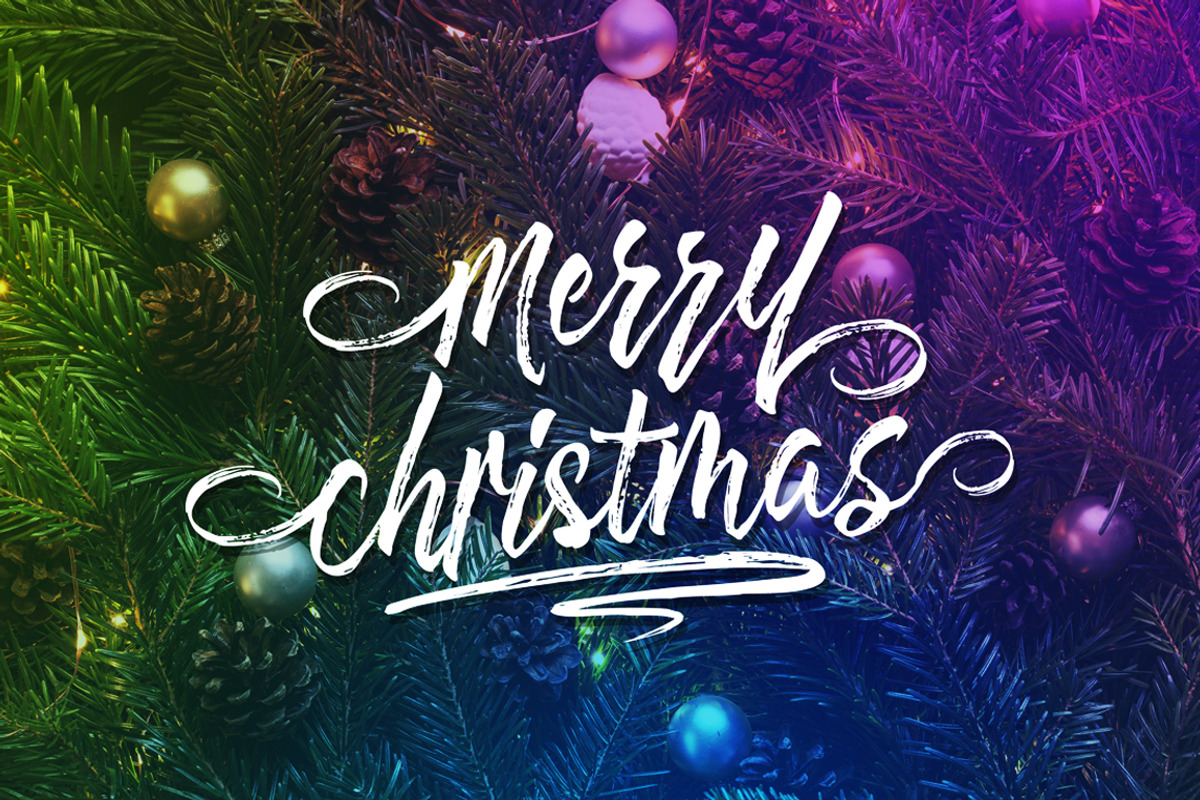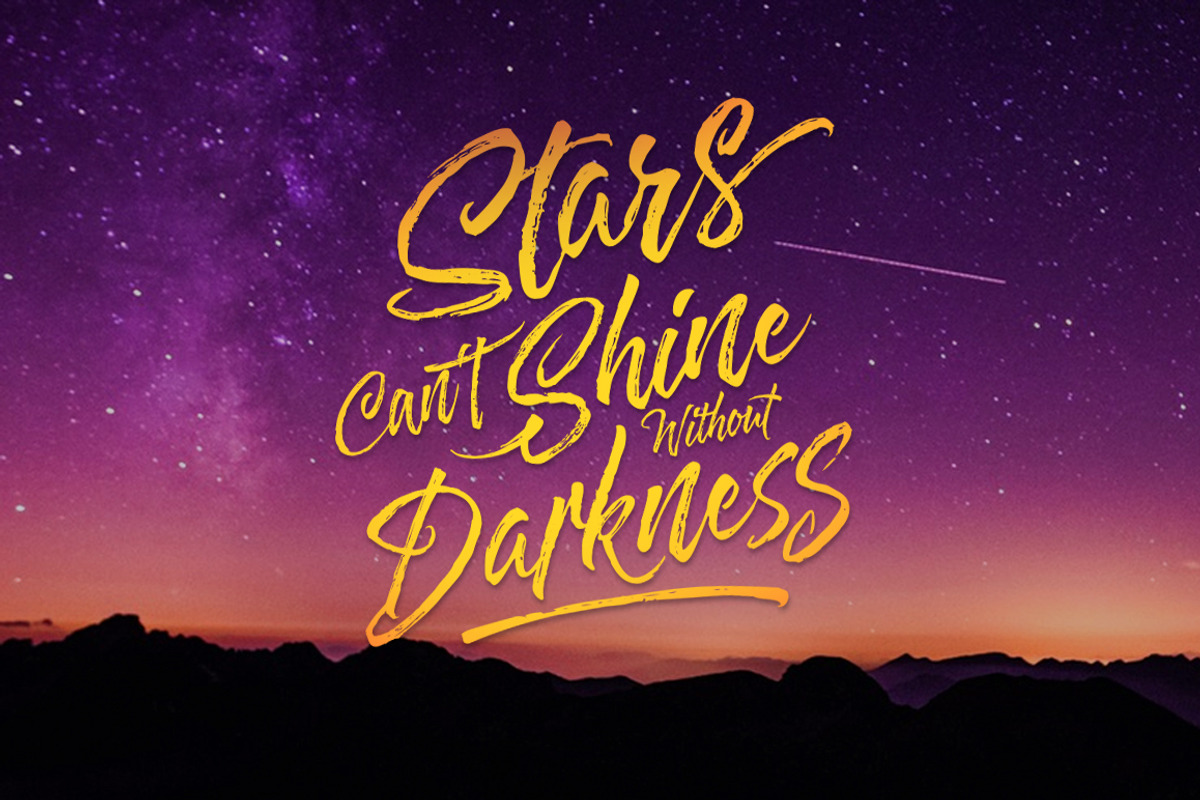
Hayne - Sans, Script & Brush Script
Hayne Script + Sans were made with a brushpen and regular pen. It comes with over 200+ Glyph, international languages for Script and Basic Glyph for Sans Version, it can be a new great weapon for your next project. We deliberately made the dying effect in this font to make it look natural and as a handwriting would be. Also, this font will be updated periodically.
Hayne Script & Sans is suitable for tshirt design, photography, invitation, ID card, tattoo, poster, logo, title, branding and etc. Tips : This font will looks nice when work together, script & sans :)